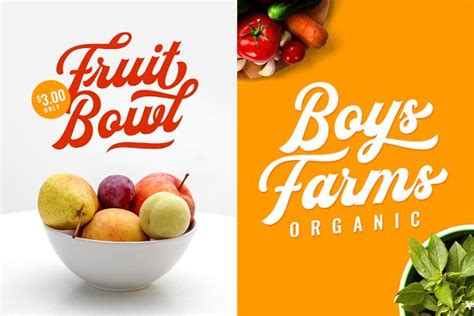
Flanders Script Font : Flanders Script Typeface Font Free Download - Free Font ... - Download flanders script demo regular font | 1 style free font.. Download flanders script fonts by letterhend. Designed by hendry juanda, flanders script is a brush script and script font family. It is was designed and shares by letterhend. Flanders font viewed 994 times and downloaded 75 times. A bold and modern script that will fulfill your design needs for sporty theme, logotype, quotes, wordmark, etc.
If you recognize the font from the samples posted here don't be shy and help a fellow designer. Aug 24, 2018 fonts 96 0. Votes, rated based on results identification. A bold and modern script that will fulfill your design needs for sporty theme, logotype, quotes, wordmark, etc. It is was designed and shares by letterhend. Flanders font viewed 994 times and downloaded 75 times. Flanders is a bold and modern script that will fulfil your design needs for sporty themes, logotype, quotes, watermarks and more. Subscribe to envato elements for unlimited fonts flanders.
This typeface has two styles and was published by letterhend studio.
A bold and modern script that will fulfill your design needs for sporty theme, logotype. A bold and modern script that will fulfill your design needs for sporty theme, logotype, quotes, wordmark, etc. This demo font is for personal use only! Designed by hendry juanda, flanders script is a brush script and script font family. Download flanders script demo regular font | 1 style free font. Regular version looking for flanders 3 or flanders script demo ? Font flanders font download free at fontsov.com, the largest collection of cool fonts for windows 7 and this font uploaded 3 february 2013. This font was posted on 06 may 2015 and is called flanders regular font. Download free fonts for mac, windows and linux. Votes, rated based on results identification. A bold and modern script that will fulfill your design needs for sporty theme, logotype, quotes, wordmark, etc. Flanders script2 otf 2 ttfnitroflare.com: It is was designed and shares by letterhend.
We have a huge range of script products available. Download flanders script (66121) today! Scarica font flanders script su fontriver.com. This has many opentype features like ligature, stylistic alternate. Votes, rated based on results identification.
But any donation are very appreciated. A bold and modern script that will fulfill your design needs for sporty theme, logotype. We have a huge range of script products available. A bold and modern script that will fulfill your design needs for sporty theme, logotype, quotes, wordmark, etc. Download flanders script (66121) today! This has many opentype features like ligature, stylistic alternate. It is was designed and shares by letterhend. Downloadrapidgator.net flanders script 2 otf 2 ttf.
It is was designed and shares by letterhend.
Download flanders script (66121) today! Flanders font viewed 994 times and downloaded 75 times. Letterhend@gmail.com or you can send. A bold and modern script that will fulfill your design needs for sporty theme, logotype, quotes, wordmark, etc. Download flanders script demo regular font | 1 style free font. Designed by hendry juanda, flanders script is a brush script and script font family. A bold and modern script that will fulfill your design needs for sporty theme, logotype. A bold and modern script that will fulfill your design needs for sporty theme, logotype, quotes, wordmark, etc. It is was designed and shares by letterhend. This has many opentype features. We have a huge range of script products available. If you recognize the font from the samples posted here don't be shy and help a fellow designer. Download free fonts for mac, windows and linux.
Votes, rated based on results identification. Scarica font flanders script su fontriver.com. It is was designed and shares by letterhend. This has many opentype features like ligature, stylistic alternate. This demo font is for personal use only!
A bold and modern script that will fulfill your design needs for sporty theme, logotype, quotes, wordmark, etc. Scarica font flanders script su fontriver.com. Regular version looking for flanders 3 or flanders script demo ? Download free fonts for mac, windows and linux. Subscribe to envato elements for unlimited fonts flanders. If you recognize the font from the samples posted here don't be shy and help a fellow designer. Aug 24, 2018 fonts 96 0. For commercial rights please contact us :
A bold and modern script that will fulfill your design needs for sporty theme, logotype, quotes, wordmark, etc. It is was designed and shares by letterhend. This demo font is for personal use only! It is was designed and shares by letterhend. If you recognize the font from the samples posted here don't be shy and help a fellow designer. Download flanders script (66121) today! Subscribe to envato elements for unlimited fonts flanders. Scarica font flanders script su fontriver.com. Flanders font viewed 994 times and downloaded 75 times. We have a huge range of script products available. A bold and modern script that will fulfill your design needs for sporty theme, logotype. Flanders flanders script font font script. Download free fonts for mac, windows and linux.